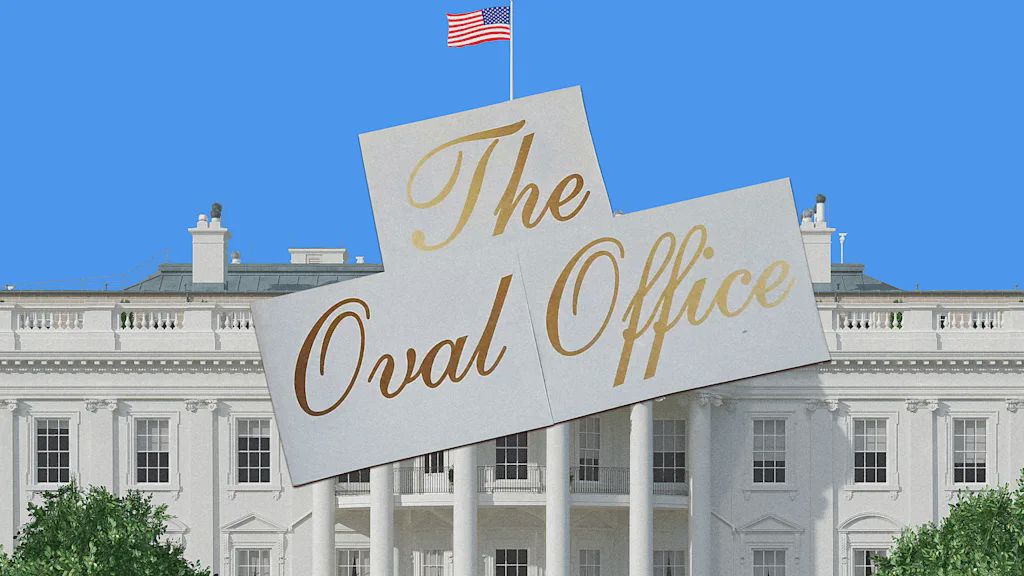
The font on that cringe new Oval Office signage has a storied history
New gold, script lettering is going up at the White House. Typography and calligraphy experts helped us identify it.